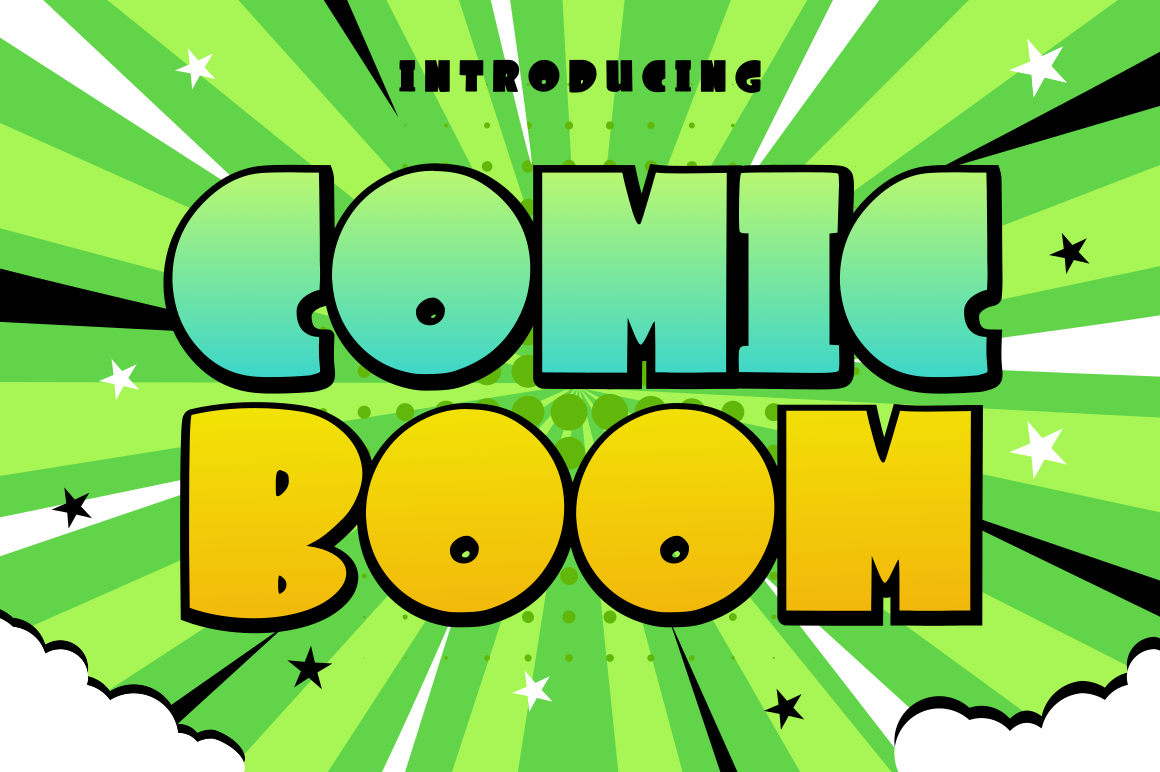
Comic Boom is a cool and fun display font. This is the perfect font for titles or words that need a more dramatic emphasis. Whatever the topic, this font will be a great asset to your font library, as it has the potential to enhance any creation. can be used for game titles, comics, vintage designs and modern designs